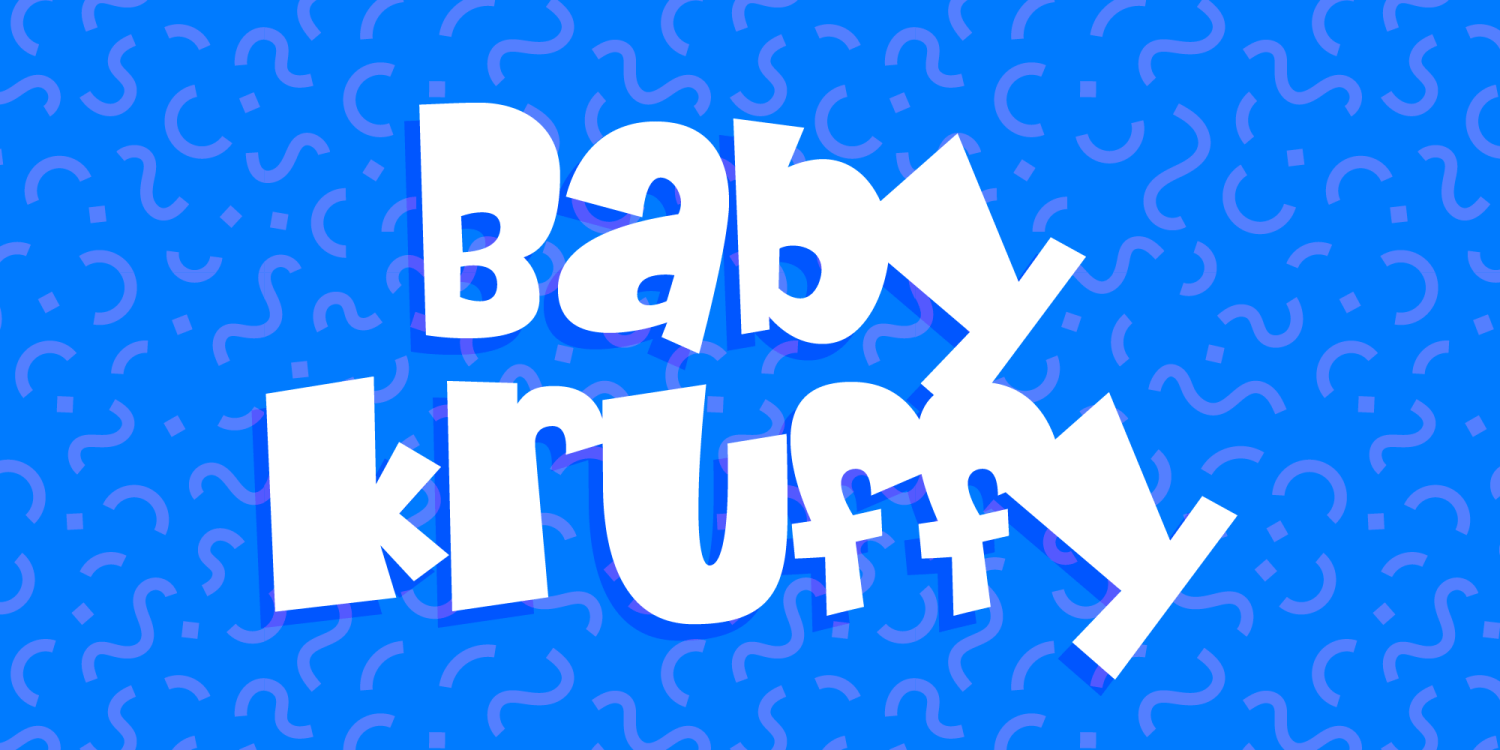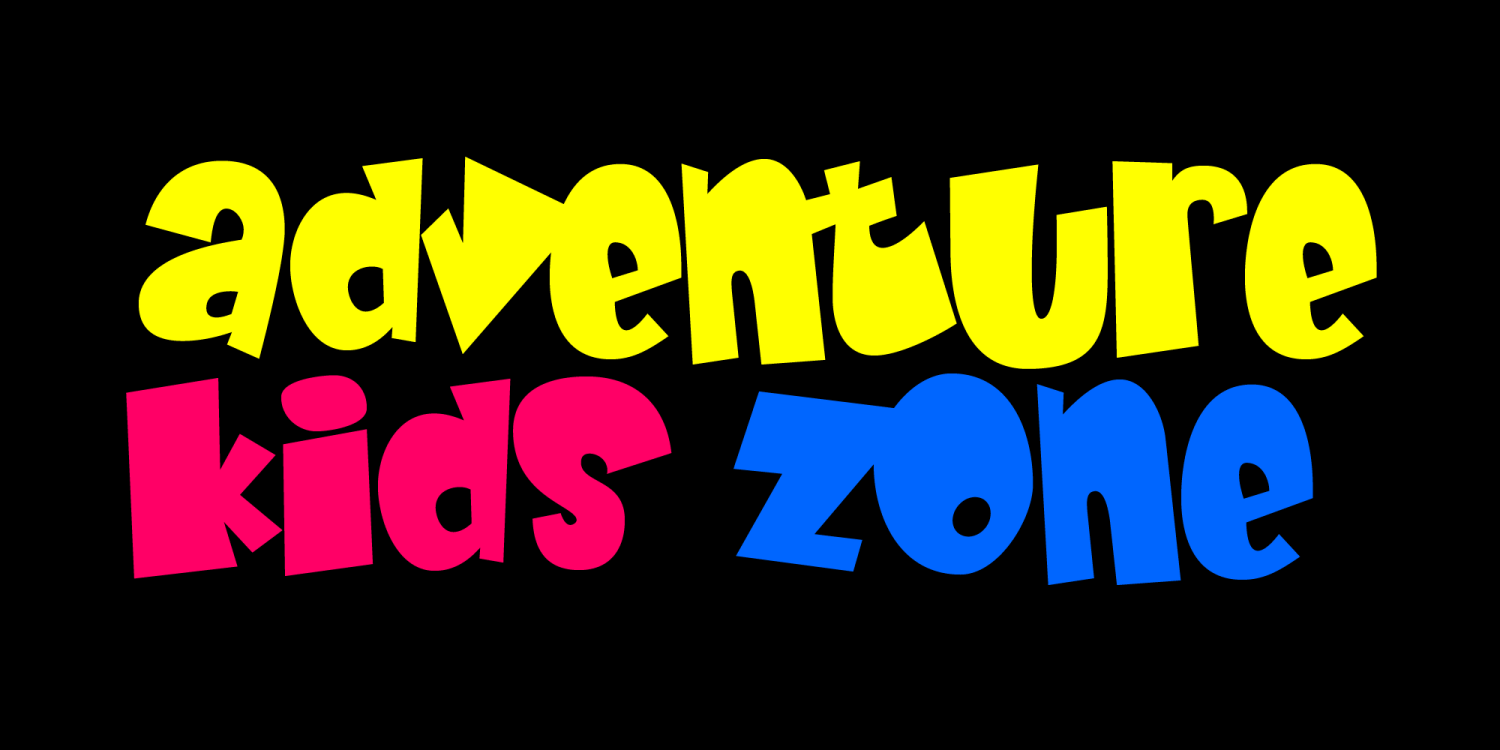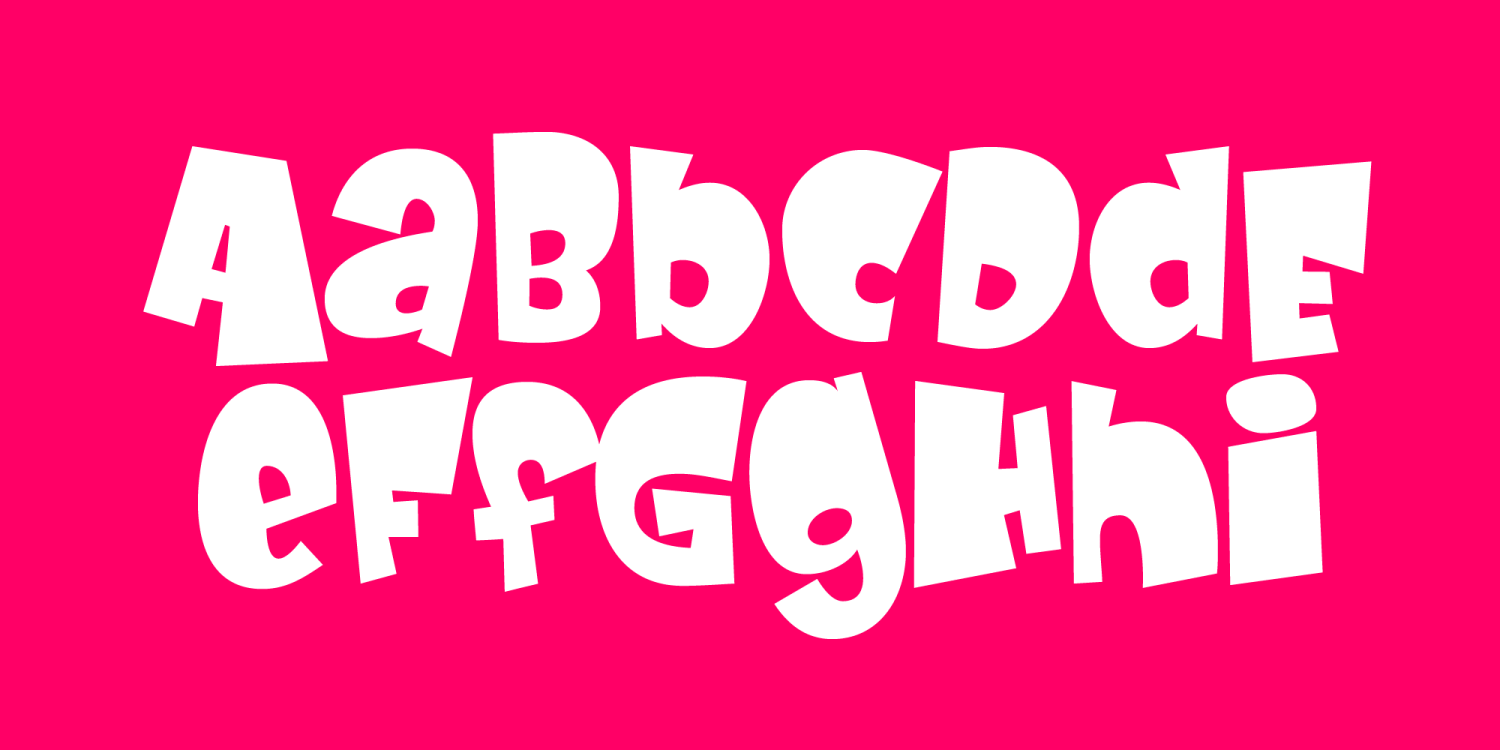
As Pac-Man is to Junior Pac, Baby Kruffy is to Kruffy. To be 110% honest with you, I don't always like all the fonts I make. Sometimes I just get so excited to put new fonts out for you, that I rush 'em. Oh yeah, I'll say it. So I took a little extra time with this one. Its nice and smooth like a baby's behind, not all rugged like the big papa. Plus, tons of euro characters and math symbols!